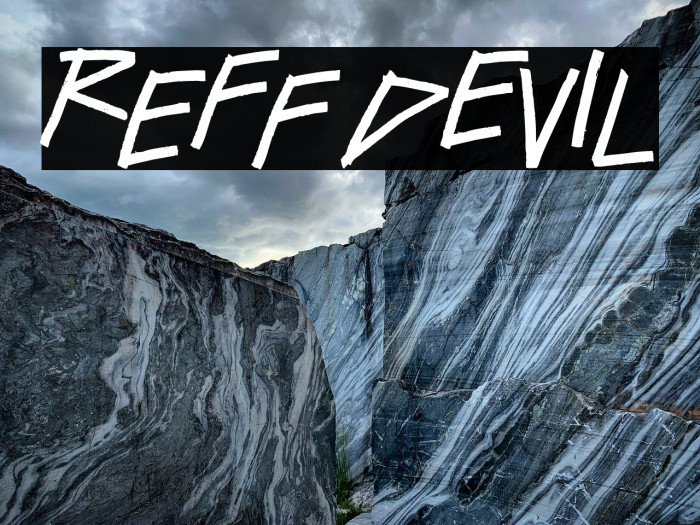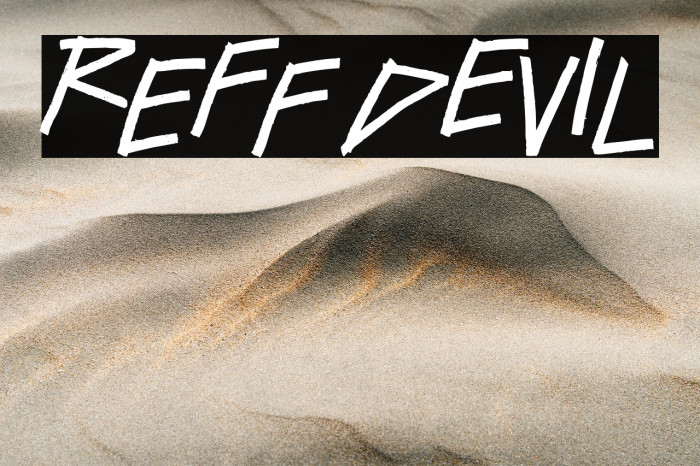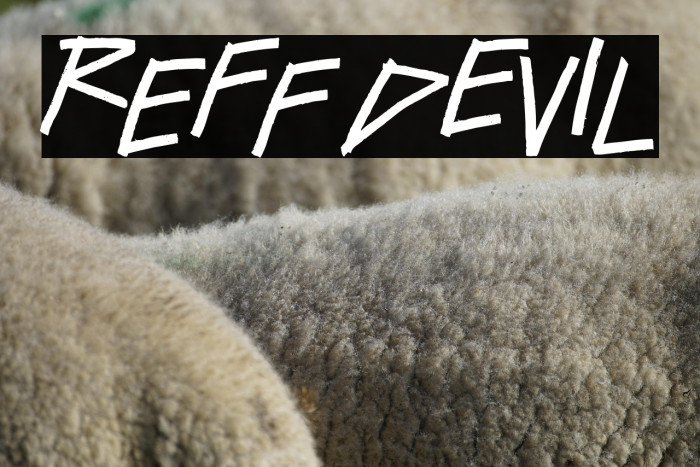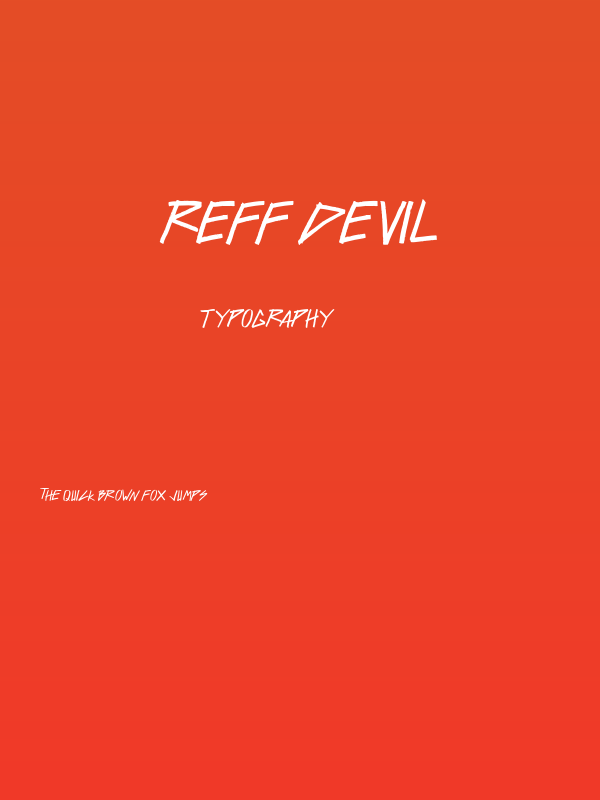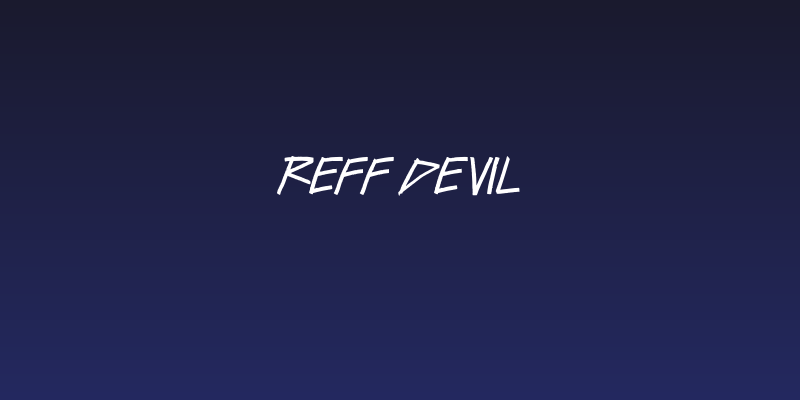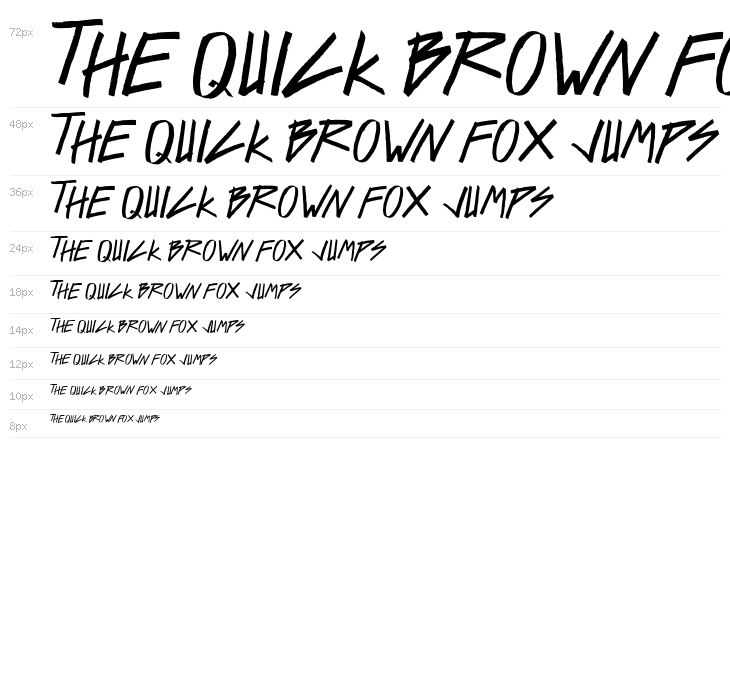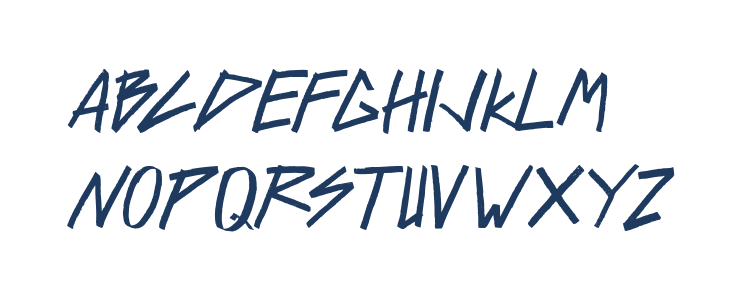
ReFf dEvIl Font
ReFf dEvIl Description
This font features an edgy, angular design with sharp, jagged lines that give it a rebellious and energetic feel. The uppercase and lowercase letters maintain a consistent style, with exaggerated angles and a dynamic slant that suggests movement and intensity. Numbers and special characters follow the same aesthetic, ensuring a cohesive look across all text elements. The overall appearance is bold and striking, making it ideal for projects that require a strong visual impact. The font's unique style is perfect for capturing attention and conveying a sense of urgency or excitement.
| Proposed Projects | Ideal for music album covers, event posters, streetwear branding, and edgy graphic designs. |